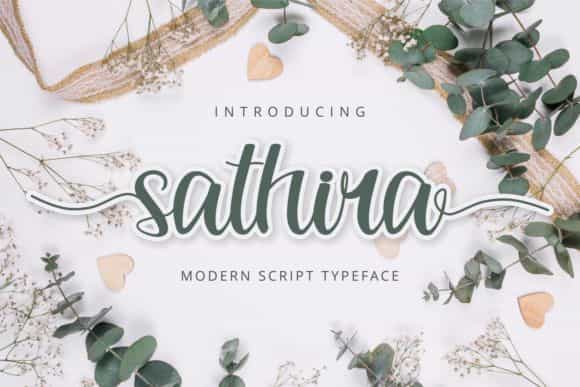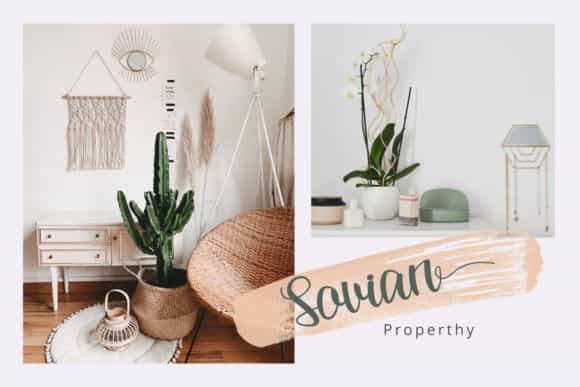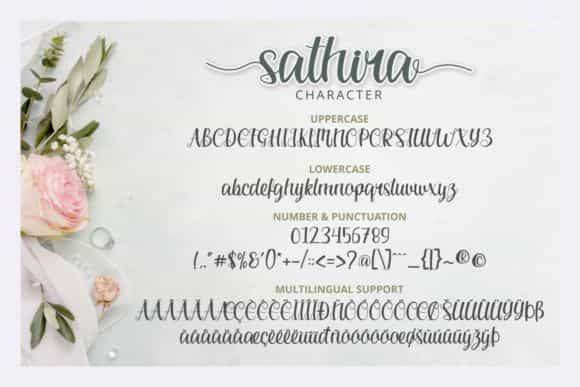
This is Sathira font that is used in calligraphy script and never goes out of style. Thanks to PUA encoding, it becomes very easy to access the range of glyphs and swashes of the font. Boasting baseline, curves, exquisite glyphs and captivating alternates; It is a font that captures one’s attention.